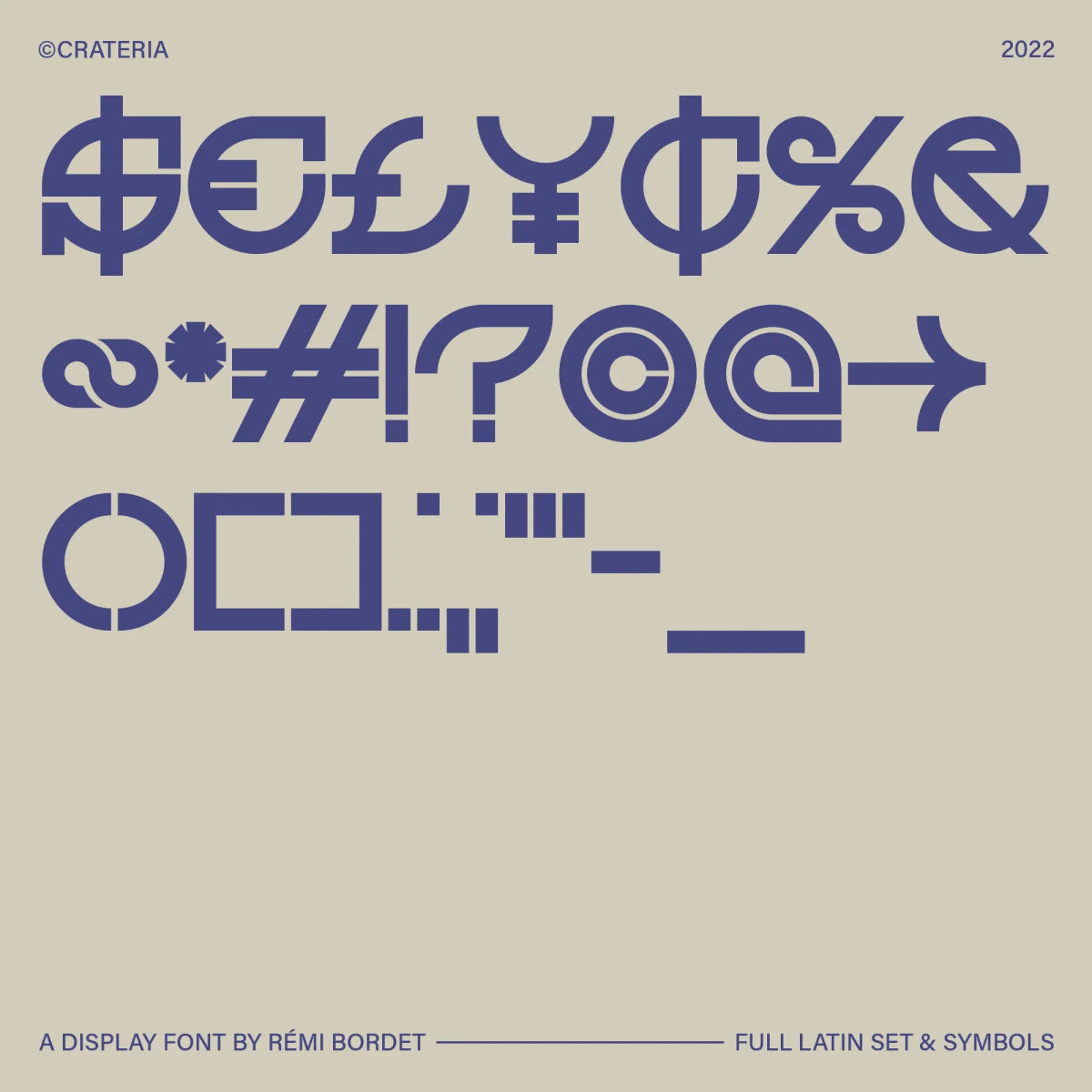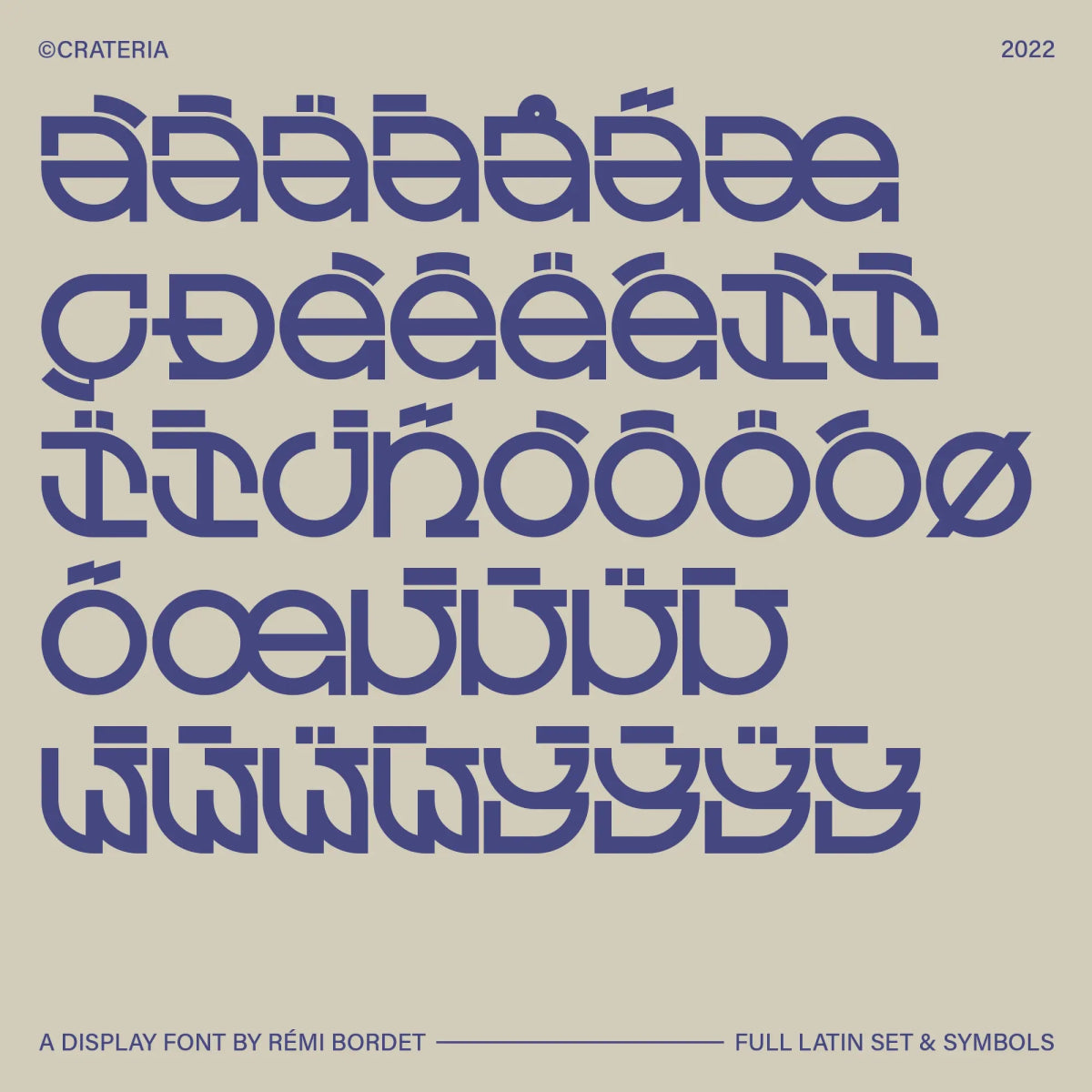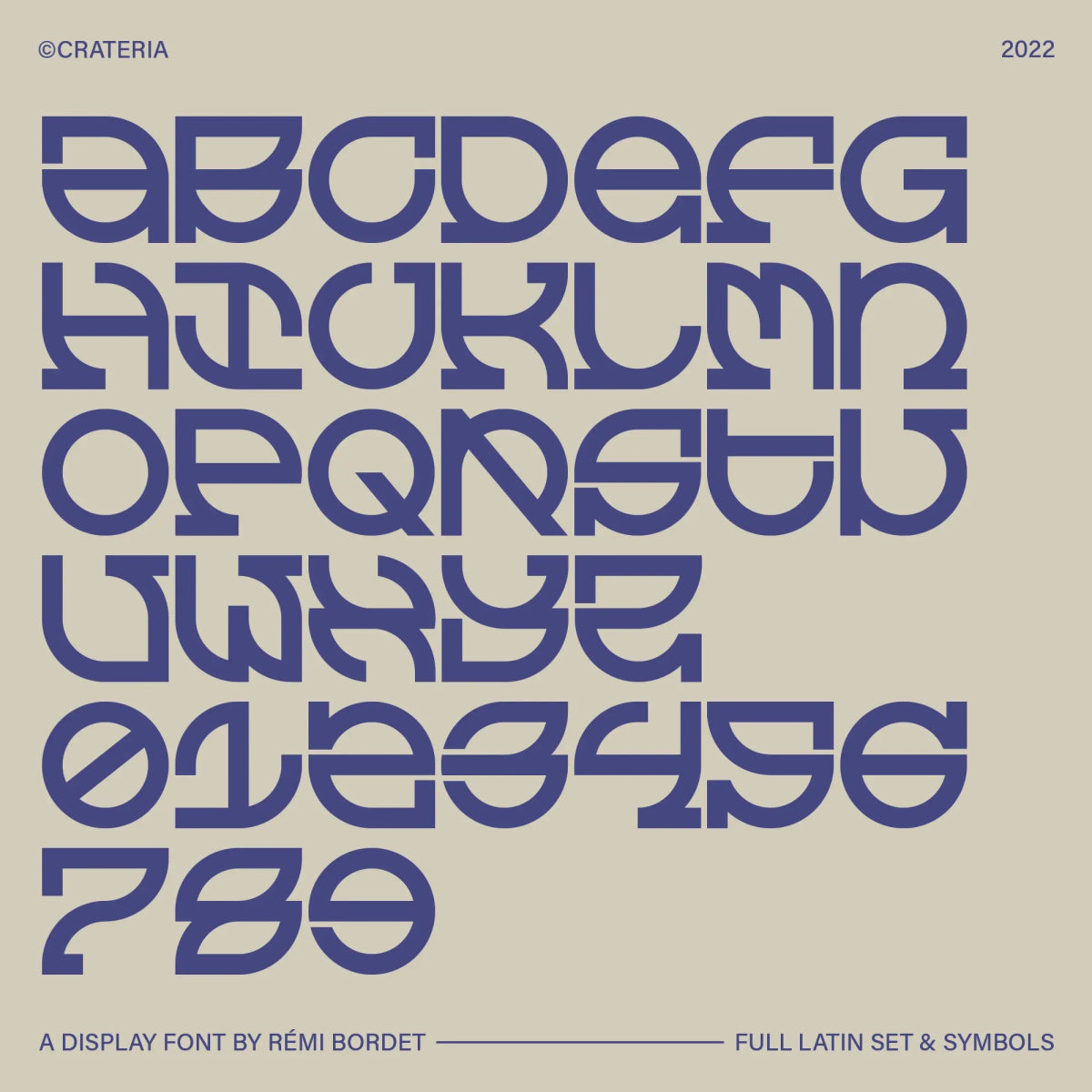
Crateria Display Font
Crateria is a bold, futuristic display font built on strict geometry and retro sci-fi vibes. With its modular shapes and techno flair, Crateria is ideal for modern branding, posters, album art, and anything that calls for a sharp, space-age aesthetic.
Font Features
• Full uppercase Latin alphabet
• Full set of numbers and punctuation